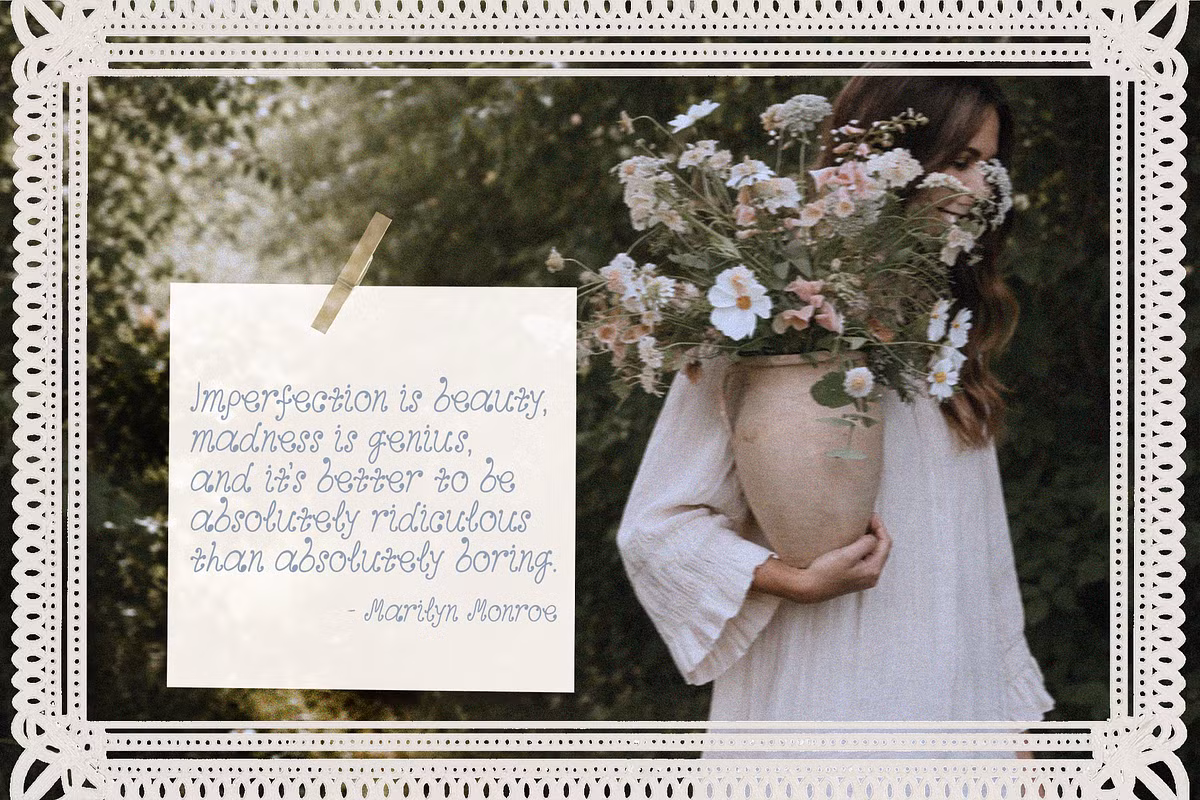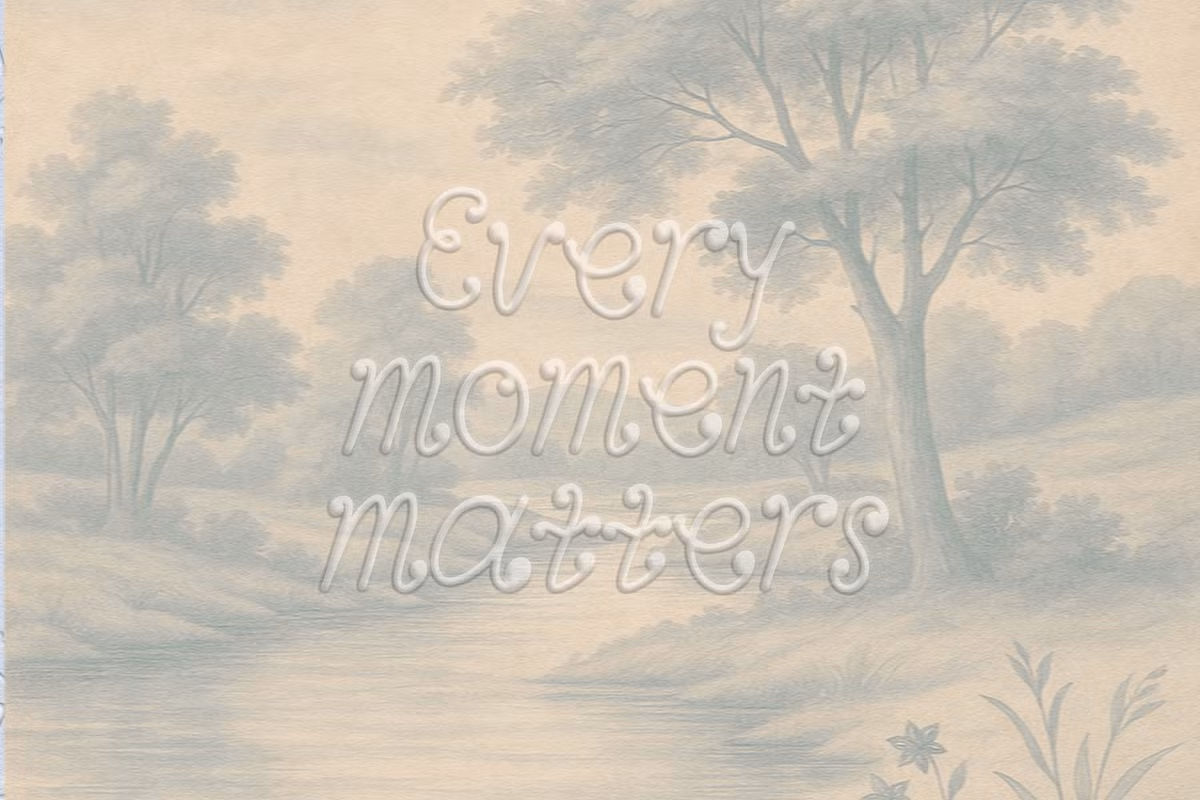
Herbarium Handwritten Font: Delicate Typeface Inspired by Nature
Introduction to Herbarium Hand
Herbarium Hand is a really pretty font that’s written by hand. It’s inspired by things like flowers that have been pressed, old books about plants, and the idea of taking your time when you write. This font has a natural, slightly imperfect feel to it. Each letter is made to feel warm and charming, like it was drawn by hand. That’s what makes it perfect for people who want their writing to look personal and special.
Design Style of Herbarium Hand
The Herbarium Hand design is really beautiful, it’s like it was inspired by nature. Each letter is carefully drawn to look gentle and alive. The lines are soft and flowing, kind of like when you write a note by hand or look at a detailed picture of a plant. This makes the font look great and it can be used in lots of different ways. It’s elegant and nice to look at, but also easy to use in different situations.
The way it’s designed, with soft strokes and careful details, makes it perfect for things like writing notes or making invitations. It’s just a really nice font that can add a touch of elegance to anything you use it for.
Visual Characteristics
The Herbarium Hand font has a special look that’s a mix of smooth curves and straight lines, which gives it a natural feel. The way the letters are spaced out isn’t perfectly regular, and that’s what makes it look like it was written by hand. This font is easy to read, but it also has a warm and friendly style that makes it perfect for using in headings or in the main text of a page.
Emotional Appeal
Herbarium Hand has a way of touching our emotions, and that’s what makes it so special. The soft, flowing letters remind us of happy memories and give us a sense of peace, making it a great choice for projects that want to create a relaxing atmosphere. You can use it for personal invitations, greeting cards, or branding materials, and it will always make people feel connected and warm.
It’s a font that can help you create something truly special, and that’s why it’s so loved.
Character Sets and Features
Special Characters and Ligatures
Herbarium Hand is more than just a basic font – it also has some special characters and ligatures that make it look really nice. These extra elements let designers create more interesting and fancy typography, which adds a touch of class to their work. Using these features helps keep the font looking natural and flowing, which is what makes Herbarium Hand so special in the first place.
It’s like it was inspired by nature, and these special touches really bring that out.
Use Cases for Herbarium Hand
The Herbarium Hand is really useful and can be used in many different ways, making it perfect for lots of design projects. Here are a few examples of how it can be used:
- Invitations and Greeting Cards: The delicate style of Herbarium Hand makes it perfect for crafting elegant invitations for weddings, baby showers, and other special occasions.
- Branding and Logos: Brands that emphasize natural products or artisanal qualities can benefit from the warm, organic aesthetic of Herbarium Hand in their logos and marketing materials.
- This font is perfect for making magazine articles and blog posts look really good. It adds a personal touch that makes reading more enjoyable.
- Herbarium Hand can add a personal touch to how products are packaged, especially for things like herbal teas, handmade soaps, or foods made with love. It’s a great way to make these items feel special and unique.
Pairing Suggestions for Herbarium Hand
When you’re working with Herbarium Hand in your designs, picking typefaces that go well with it can really make your project look great. Here are a few ideas for typefaces that work well together:
- Sans-Serif Fonts: Pairing Herbarium Hand with a clean sans-serif font like Montserrat or Open Sans can create a beautiful contrast, balancing the organic feel of the handwritten letters with modern simplicity.
- Serif Fonts: For a more classic look, consider pairing Herbarium Hand with a serif font such as Playfair Display or Merriweather. The combination of soft curves and sharp serifs can lead to visually appealing designs.
- If you’re going for a handwritten look, pairing Herbarium Hand with a similar script font can make your design look really nice and put together. This way, you can keep the same feel throughout, which is great if you want to create a consistent style.
If you want to make your designs feel more natural and artistic, Herbarium Hand is a great choice. It’s like adding a little bit of poetry to your work. The people who made this font thought about all the little details, so it’s easy to use and looks good no matter what you’re making.